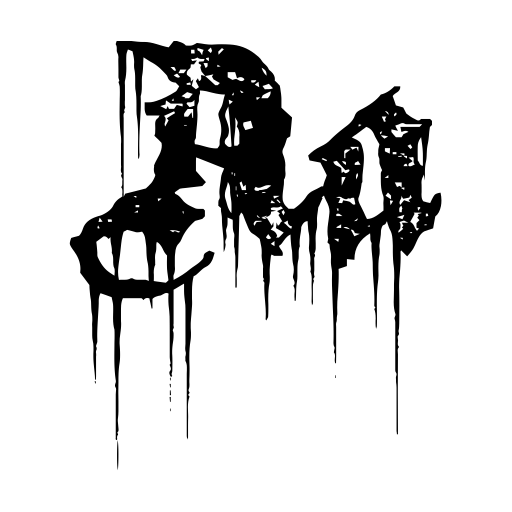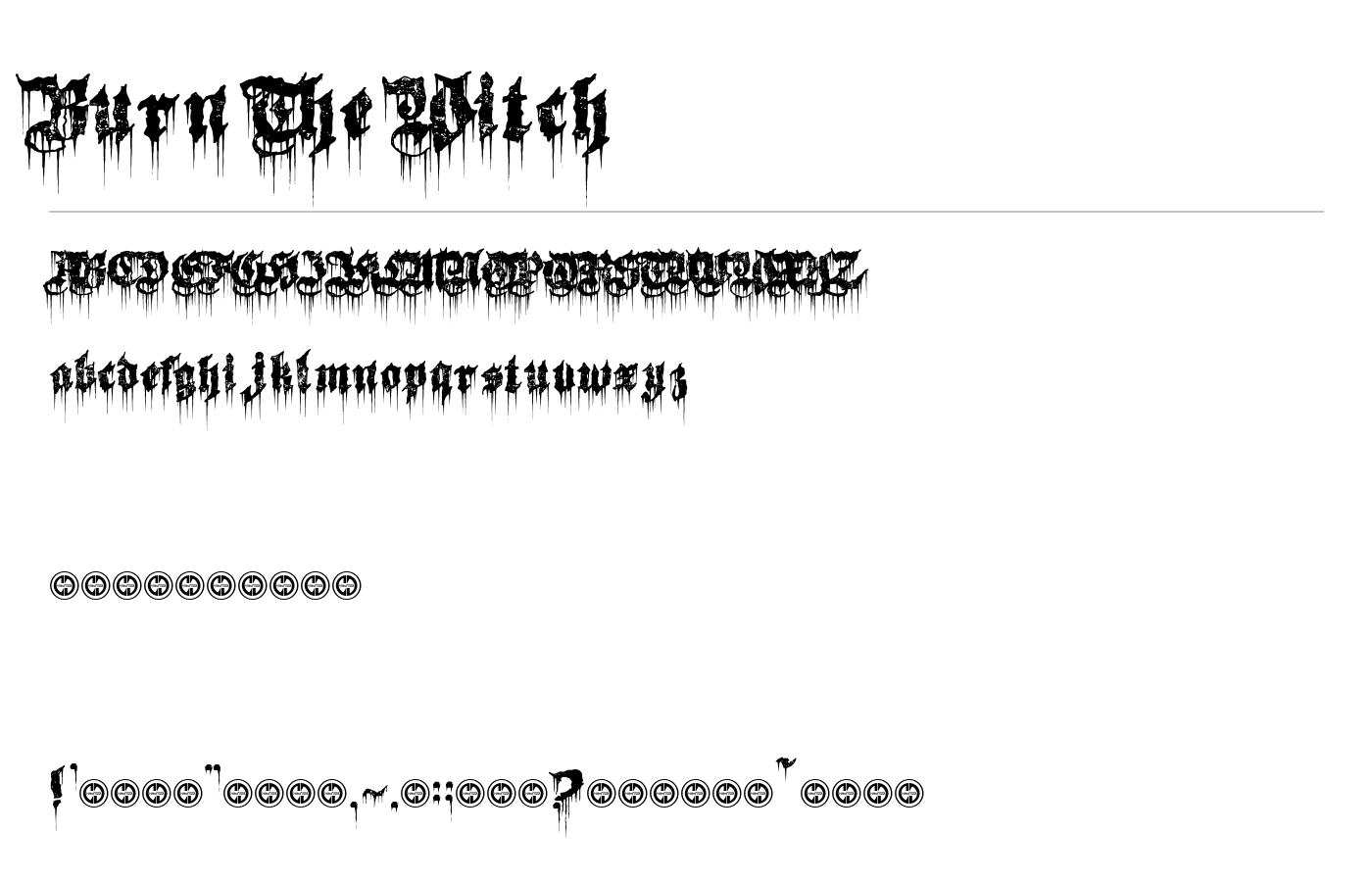
Burn The Witch is a decorative blackletter-style font with a dark, dripping effect that gives it a haunting and eerie appearance. This bold, highly stylized typeface features sharp, gothic letterforms with an organic texture that evokes a spooky, horror-themed vibe. It's perfect for Halloween designs, horror posters, or any project needing a dramatic, unsettling atmosphere.
Burn The Witch Font
About Burn The Witch Font
| Font family | Burn The Witch Font |
| Designer | Chris Vile |